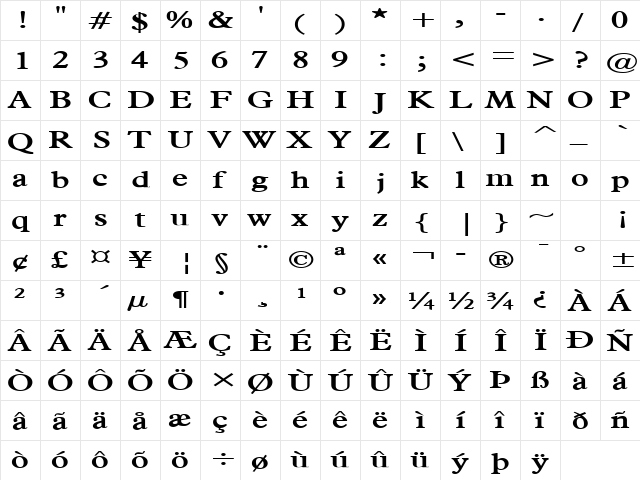
Nadine-Extended Bold
Design Context for Nadine-Extended Typeface
Nadine-Extended offers clean, dependable letterforms without strong stylistic allegiance, making it a practical choice for designers who need flexibility. The heavy weight commands attention and anchors typographic hierarchies.